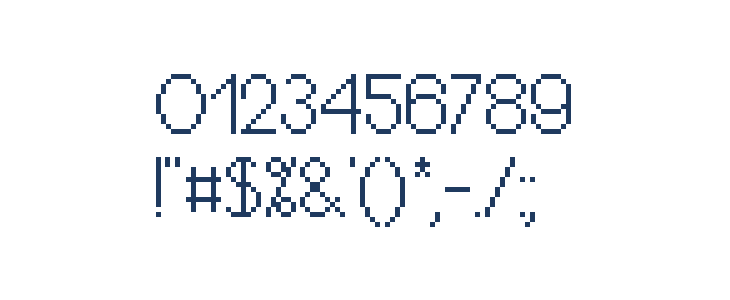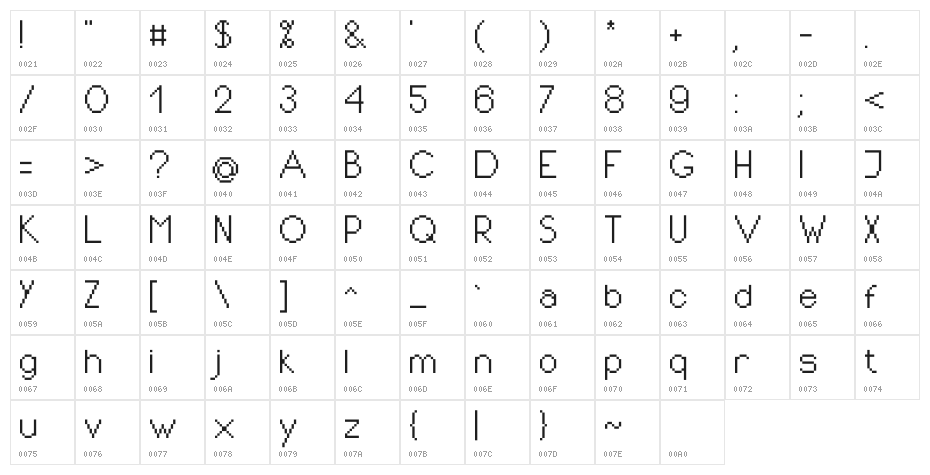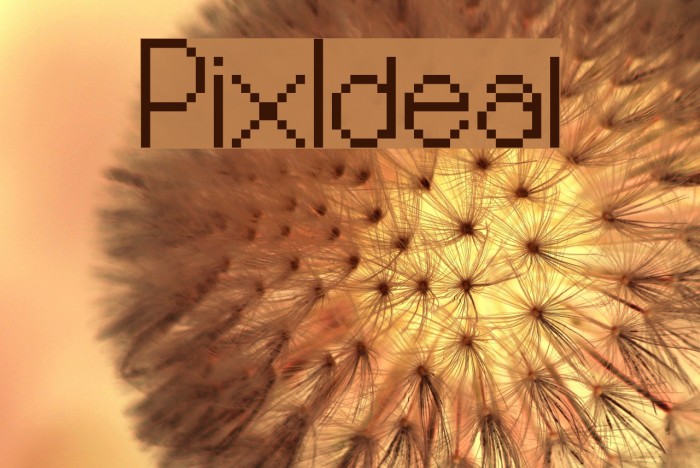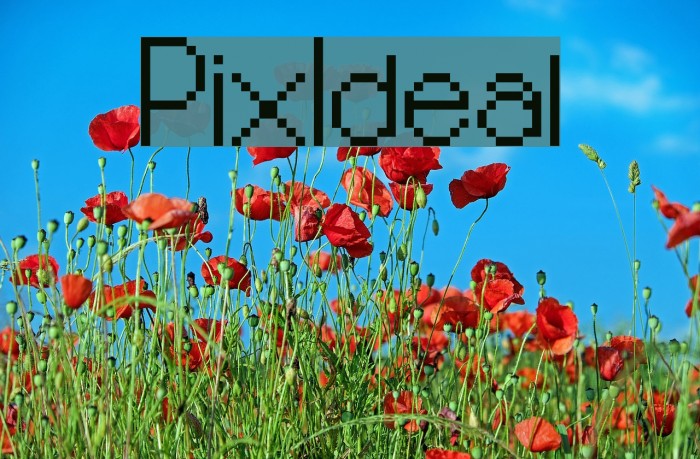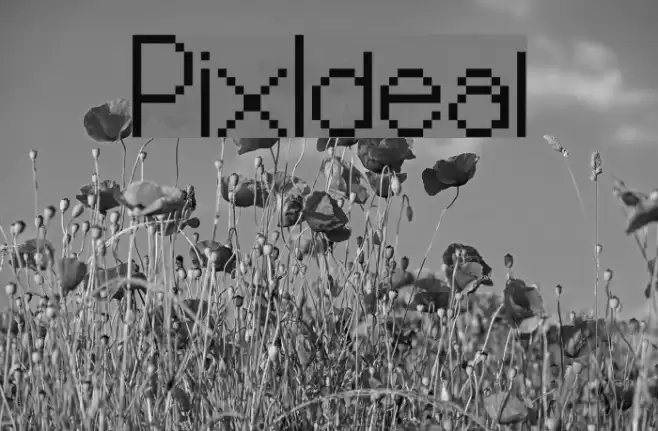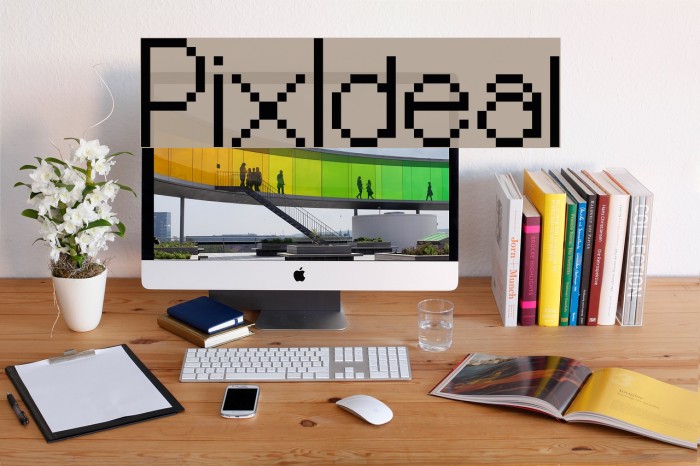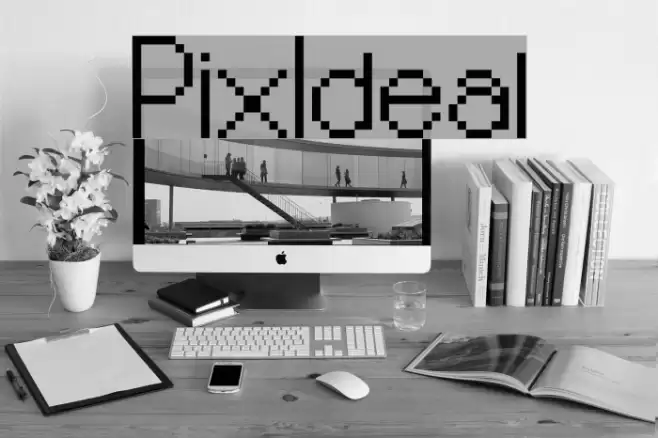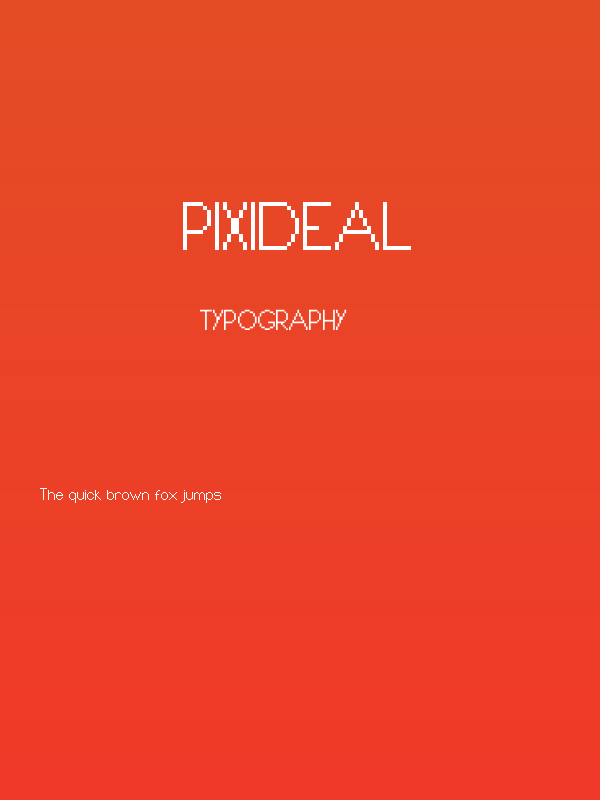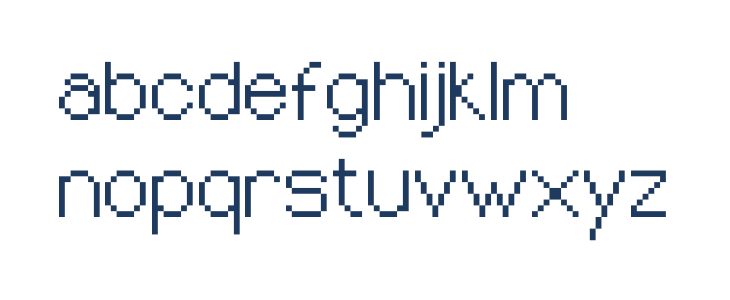
PixIdeal Font
PixIdeal Description
This font features a pixelated, grid-like design reminiscent of early digital displays and retro video games. Each character is constructed with a uniform, square-based structure, giving it a distinct, blocky appearance. The uppercase and lowercase letters maintain a consistent height and width, emphasizing the geometric nature of the typeface. Numbers and special characters follow the same pixelated style, ensuring visual cohesion across all elements. The font's simplicity and clarity make it highly legible, even at smaller sizes, while its nostalgic aesthetic evokes a sense of classic digital technology.
| Use Case | Logos, Headlines, Digital Art |
| Proposed Projects | Ideal for retro-themed designs, video game graphics, digital art projects, and any creative work that seeks to evoke a sense of nostalgia for early computing and gaming. |